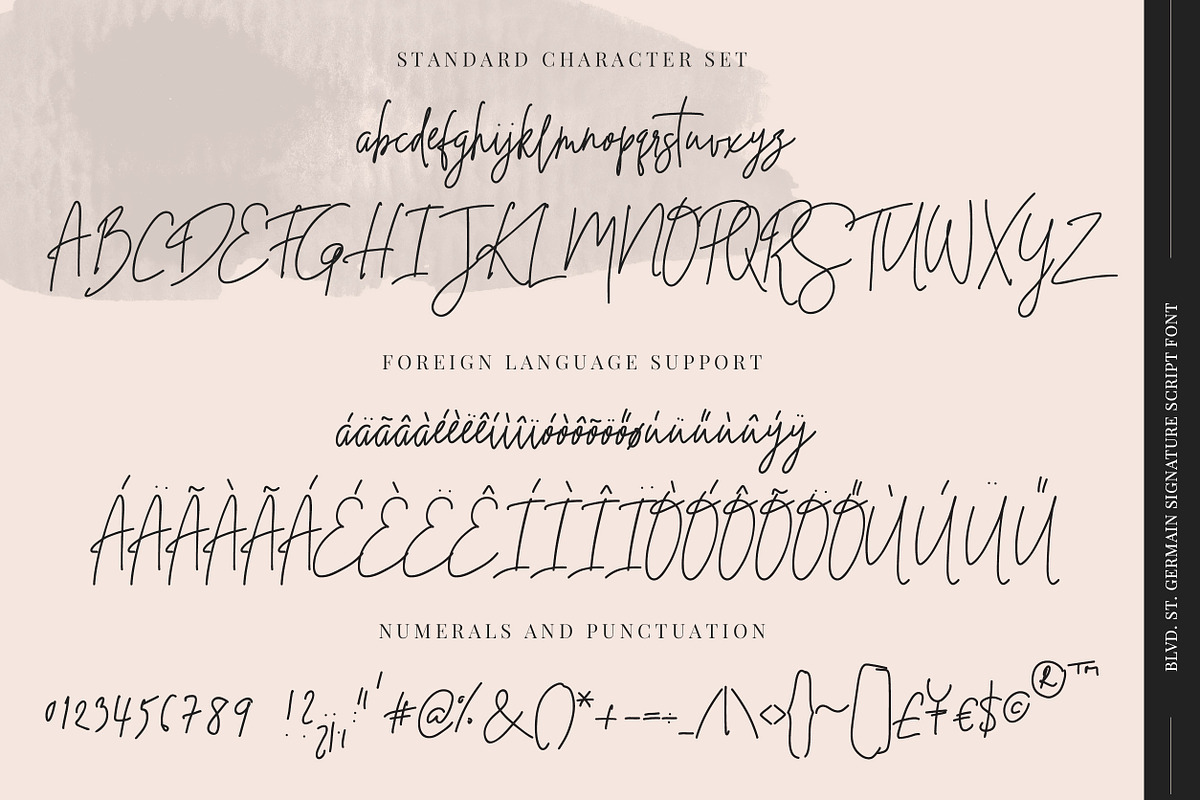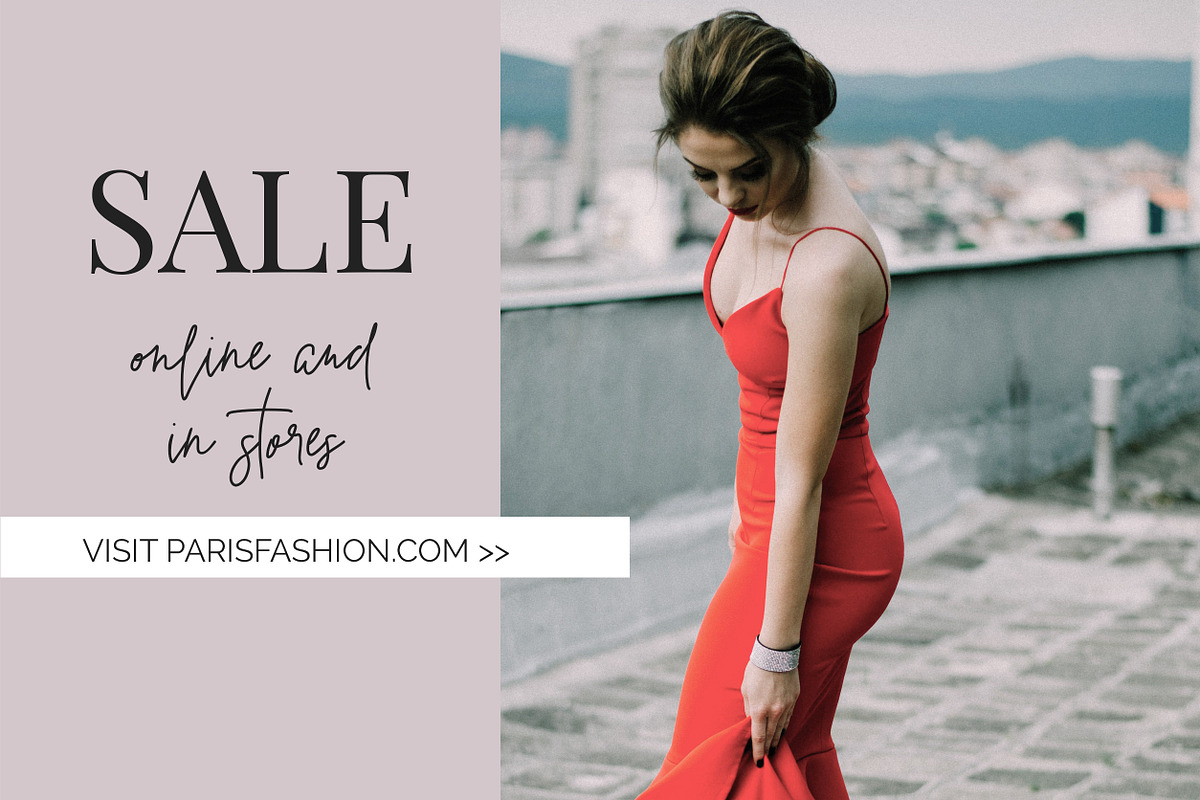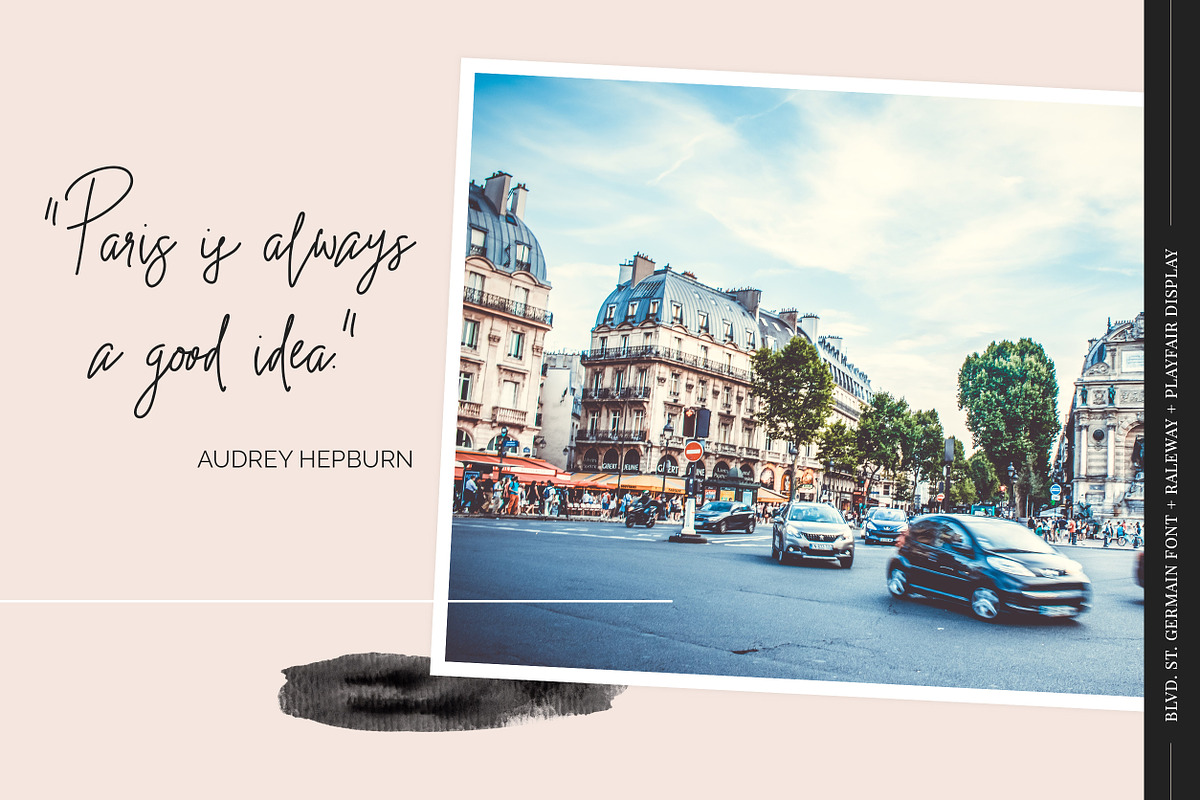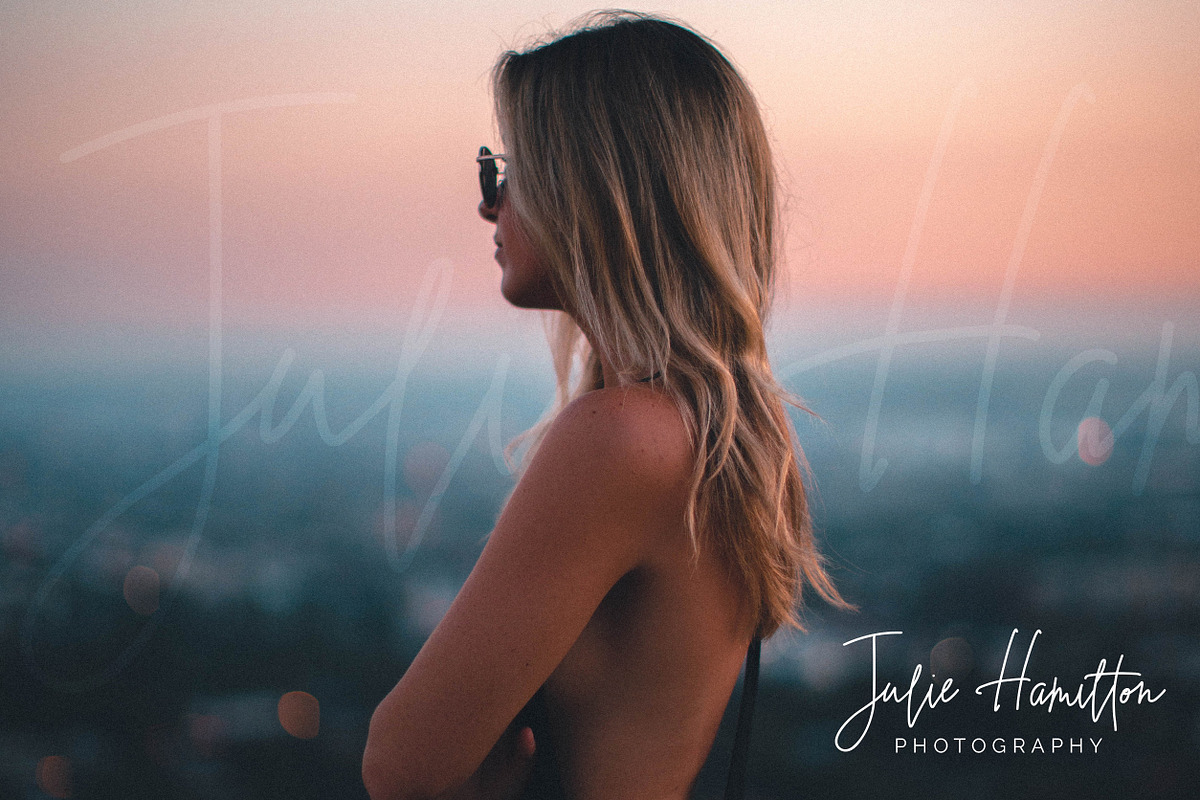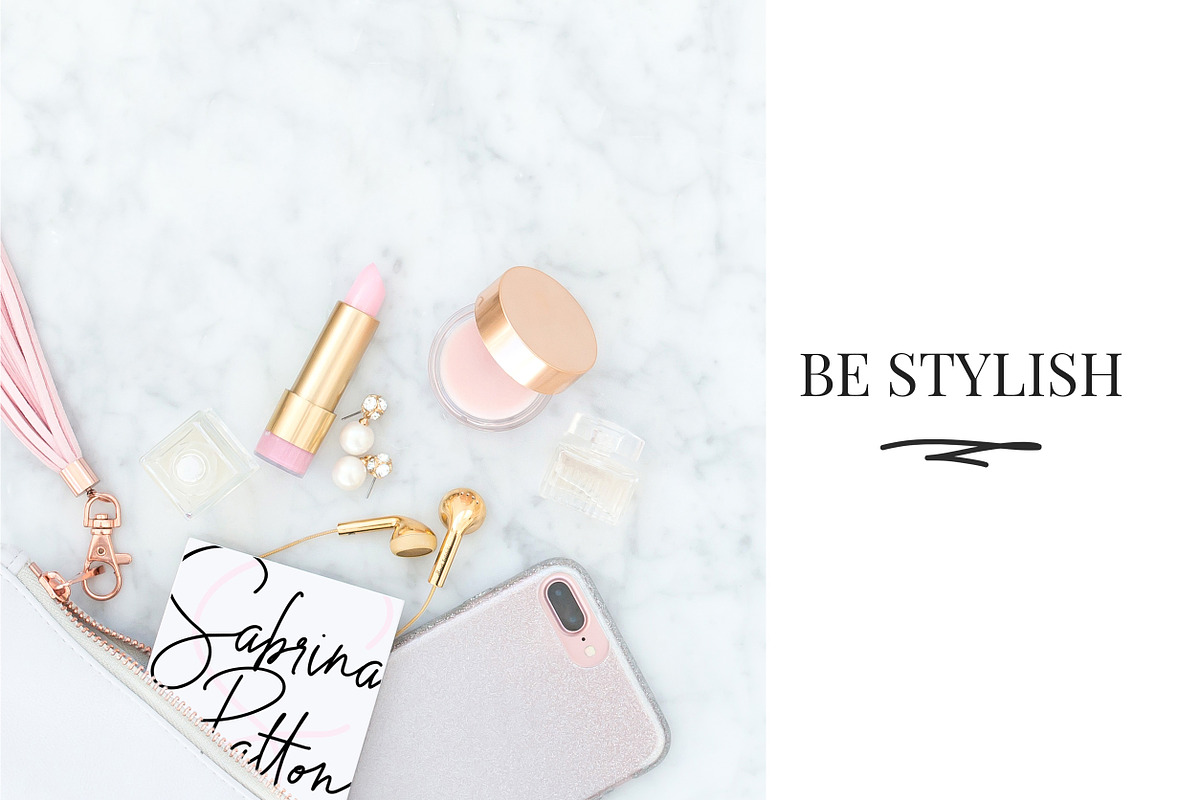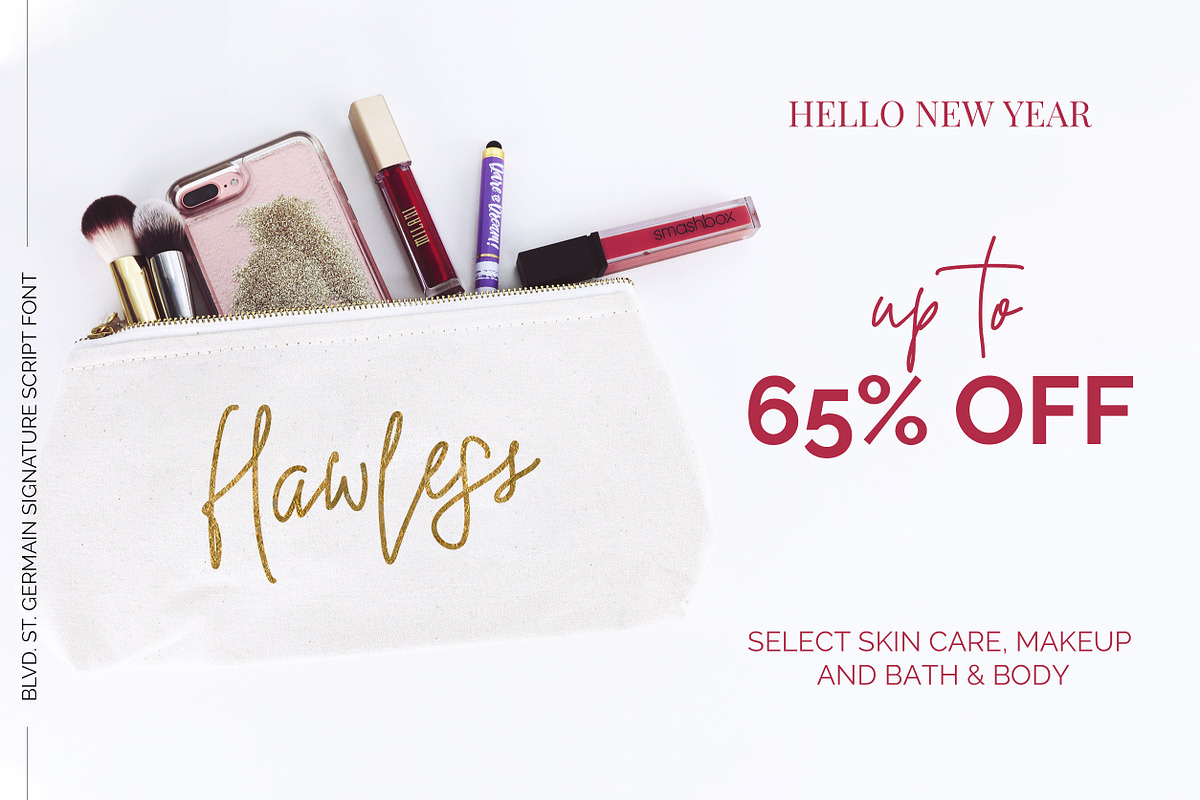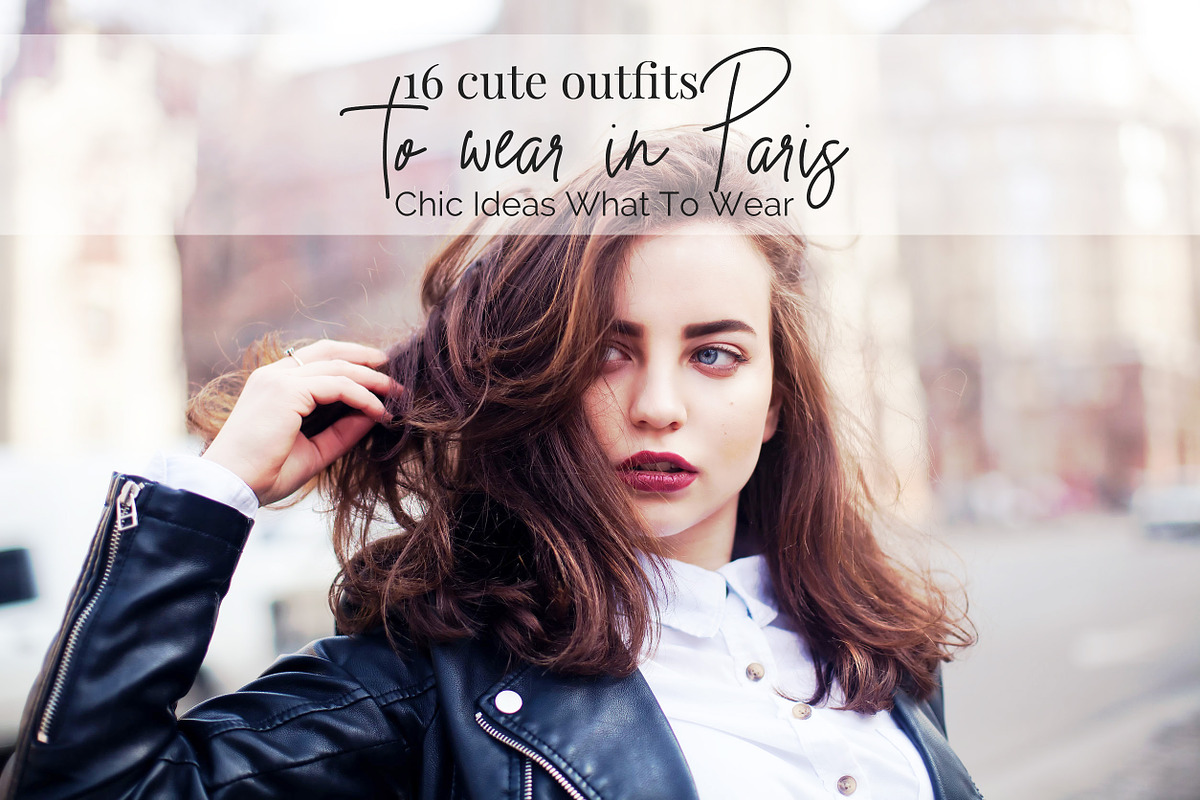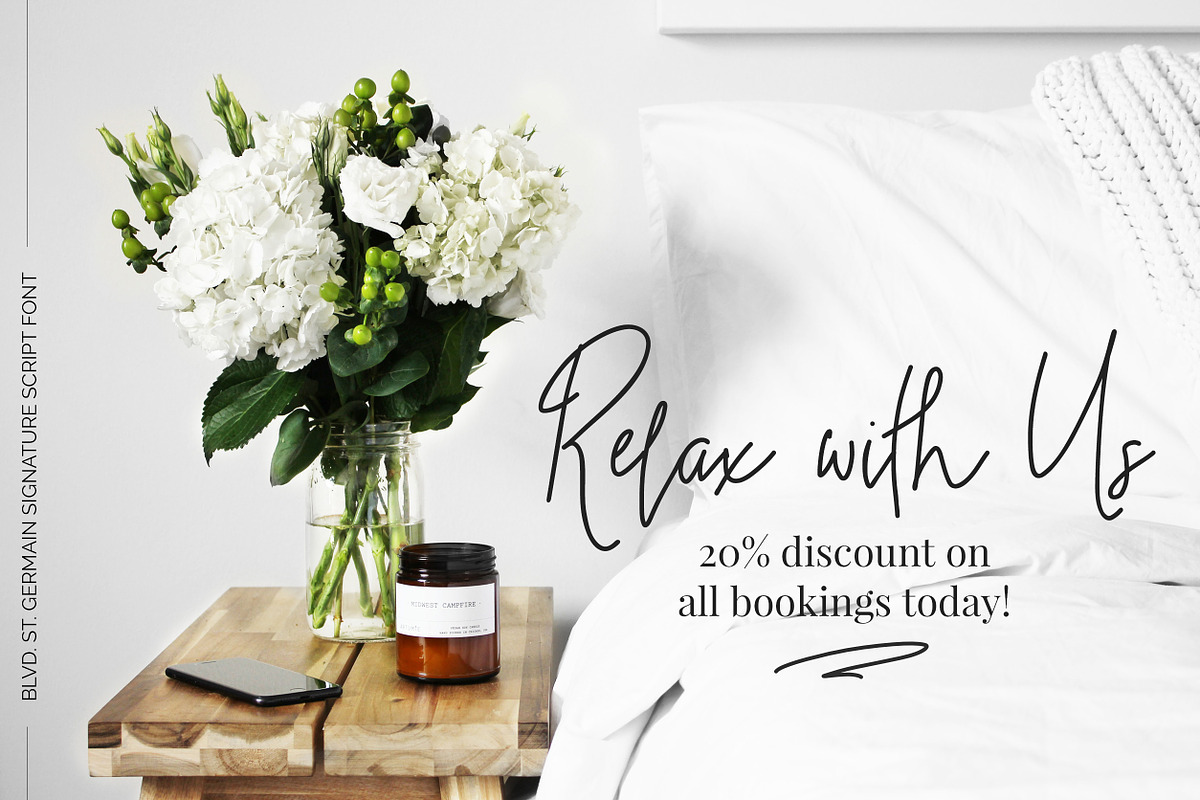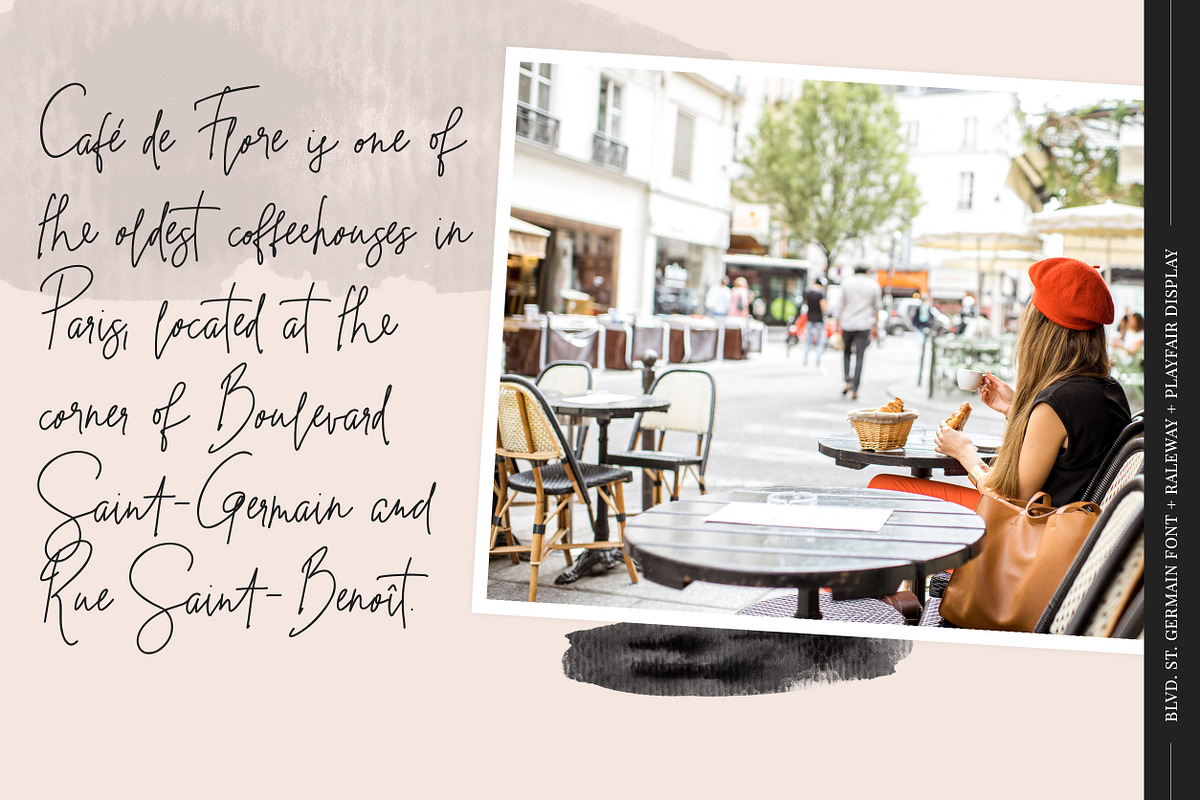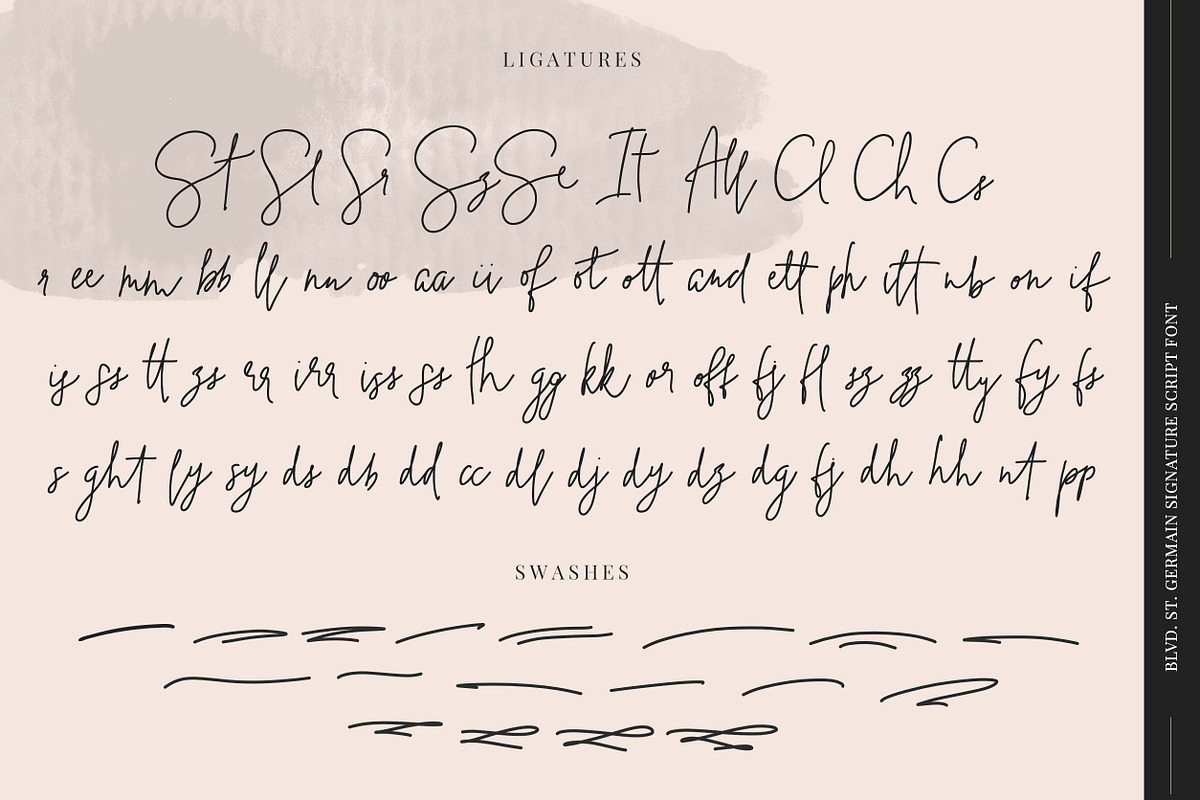
Blvd. St. Germain Signature Script
This classy signature script font was inspired by Boulevard Saint-Germain and Paris chic. It contains more than 250 characters (standard and alternate ligatures) to make the script as similar to handwriting as possible.
It's best for logos and branding with a feminine feel, headers, shop announcements, social media images etc.
Blvd. St. Germain signature script font supports Western European languages and Hungarian, and comes as an .otf file.
In the sample images I used Playfair Display and Raleway too (both are free Google fonts).